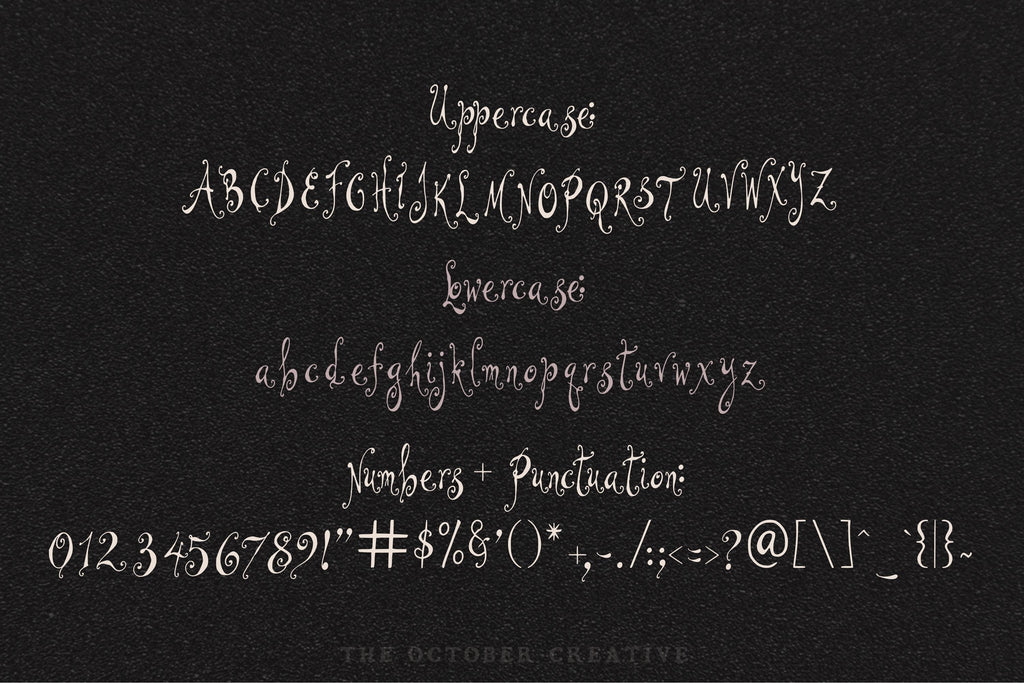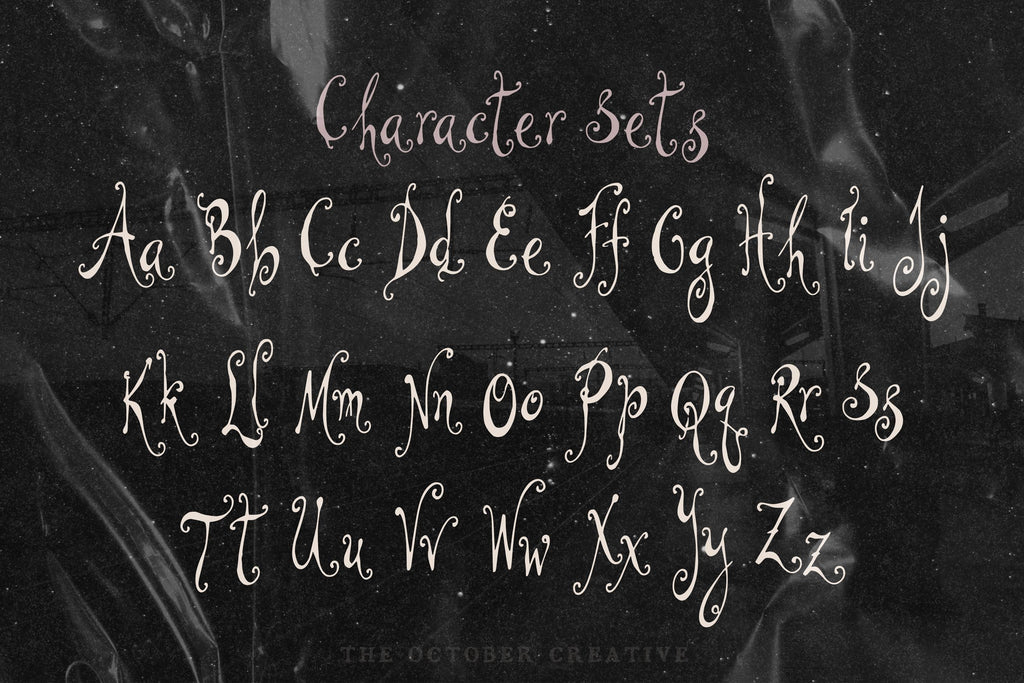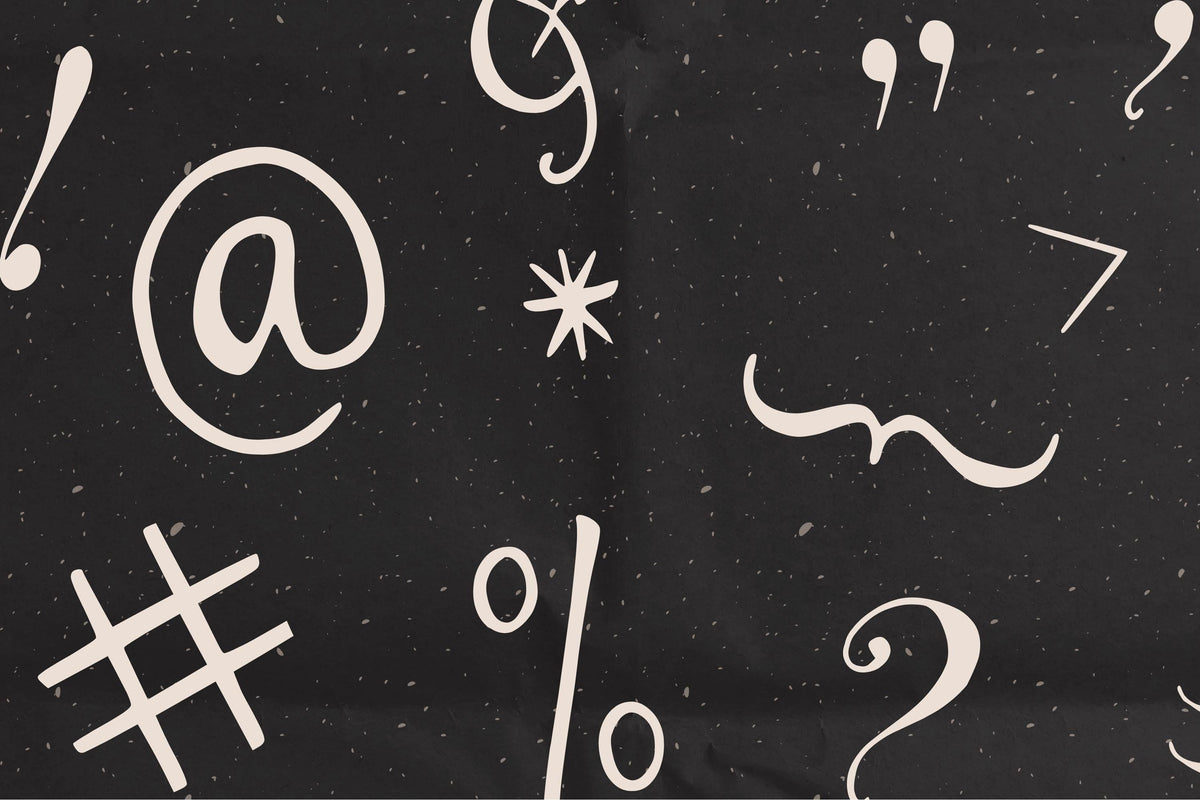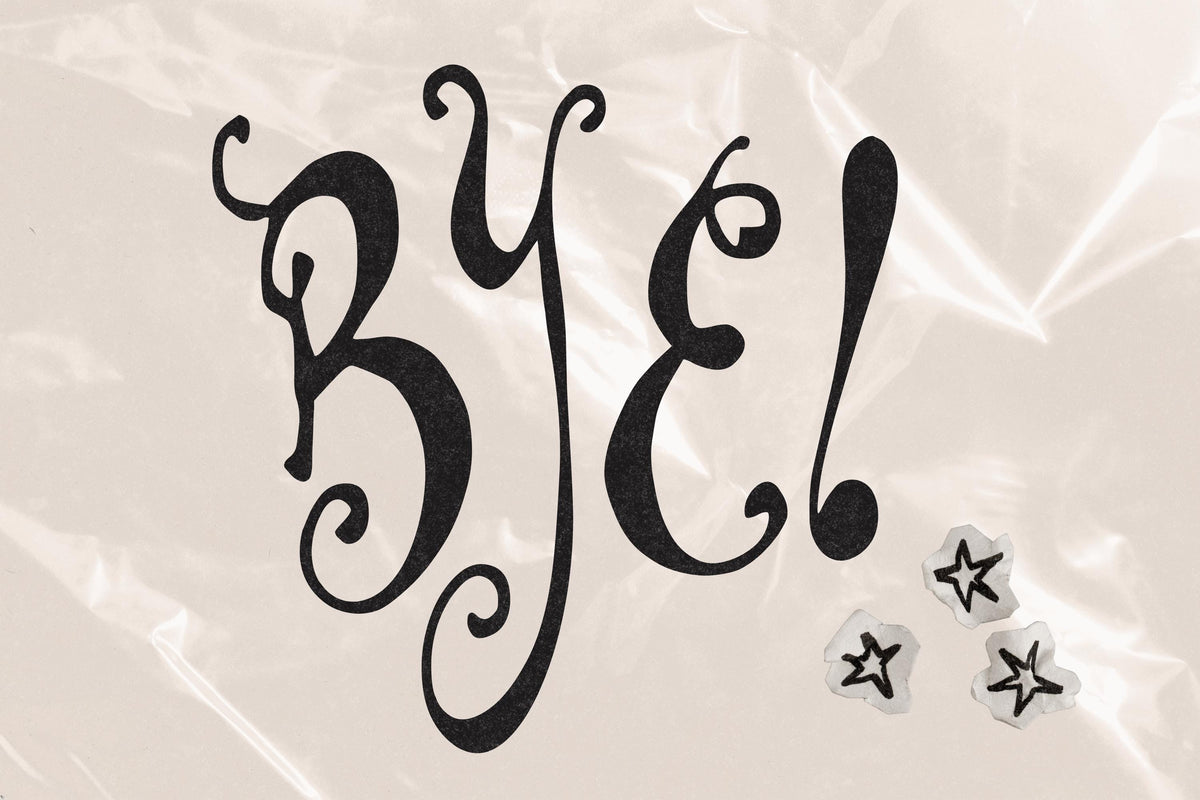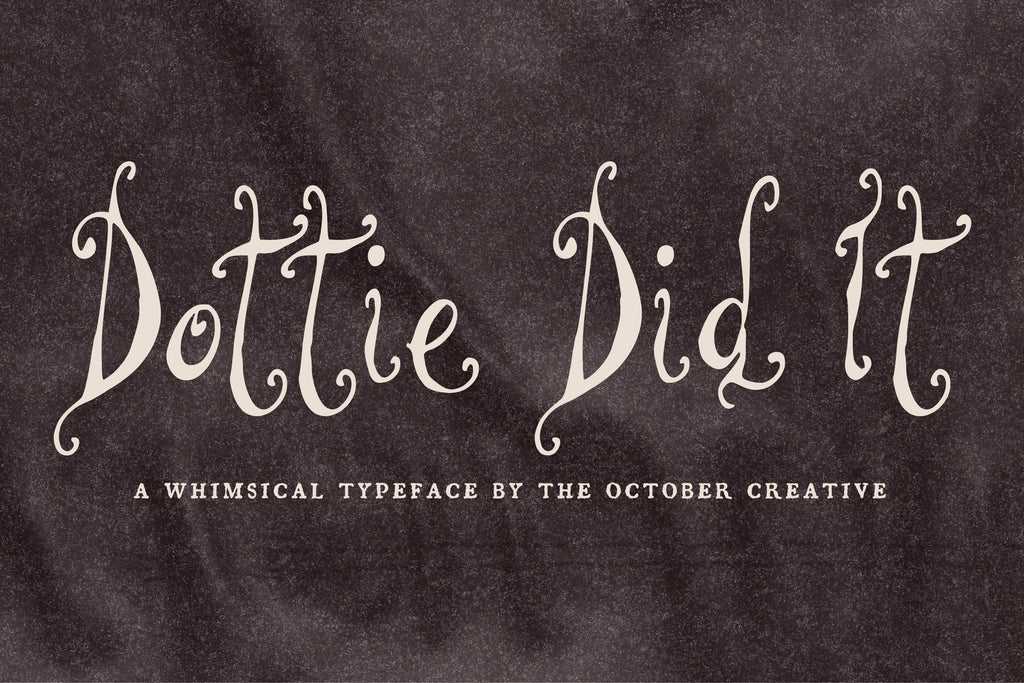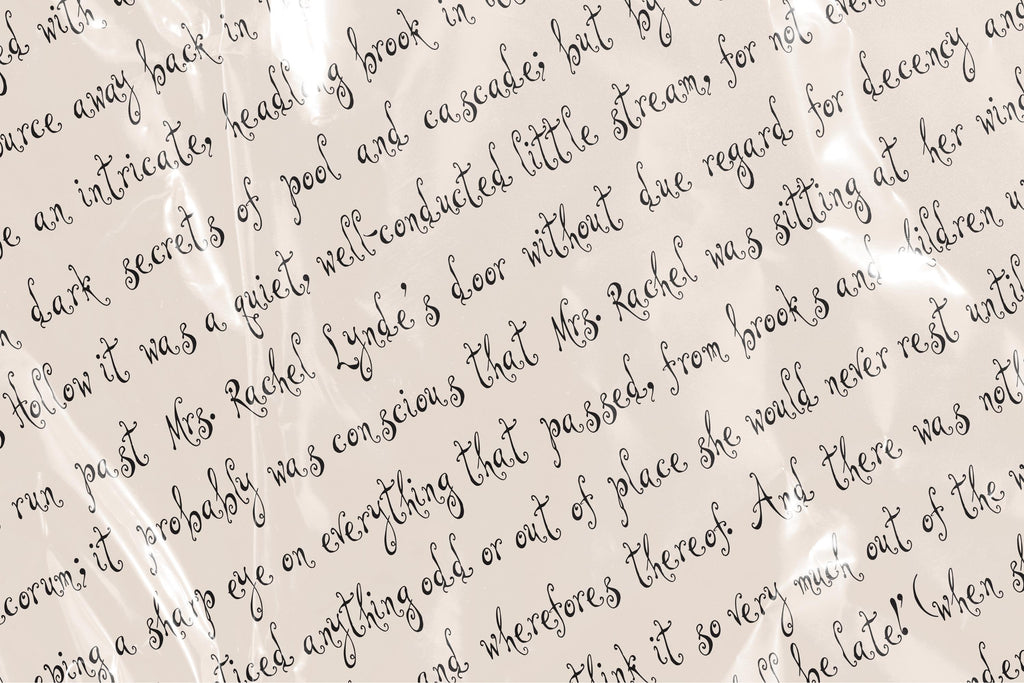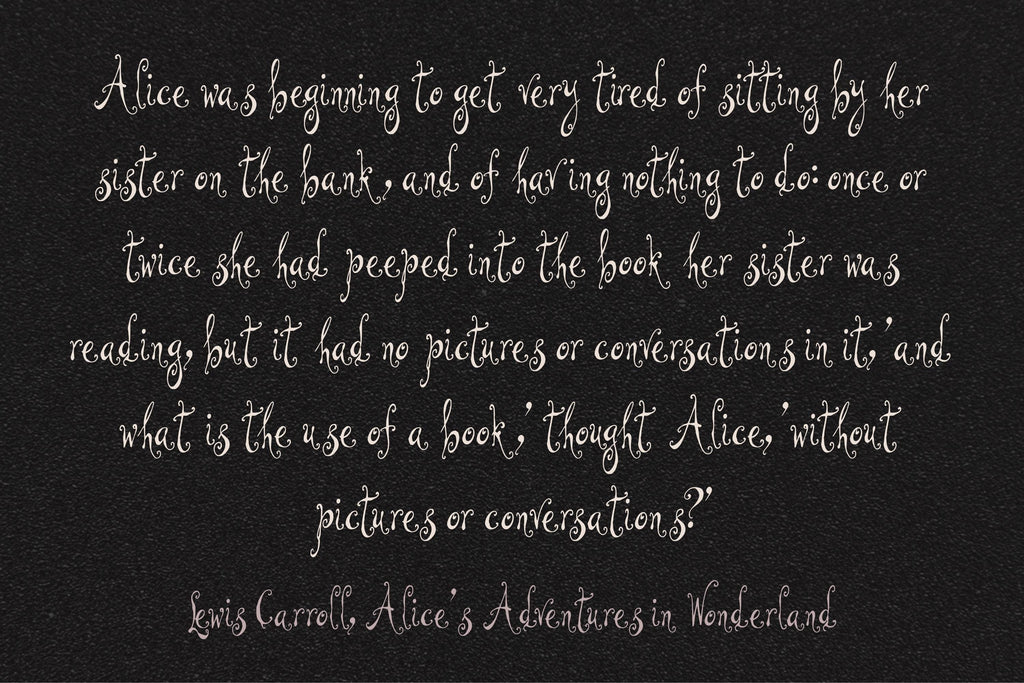
Dottie Did It Font
Dottie Did It brings big, airy swirls to baby shower invitations, birthday cards, and cheerful little signs. The fine lettering keeps it light, while the generous curls make a name or greeting feel like something to celebrate.